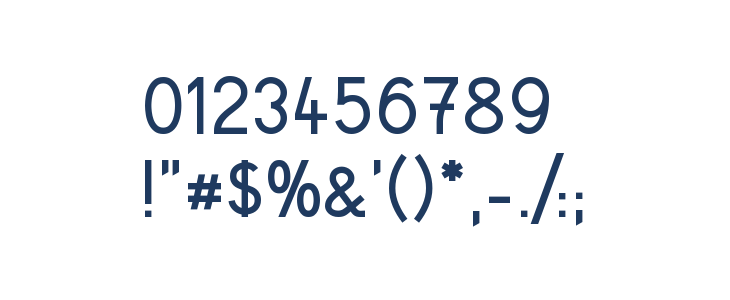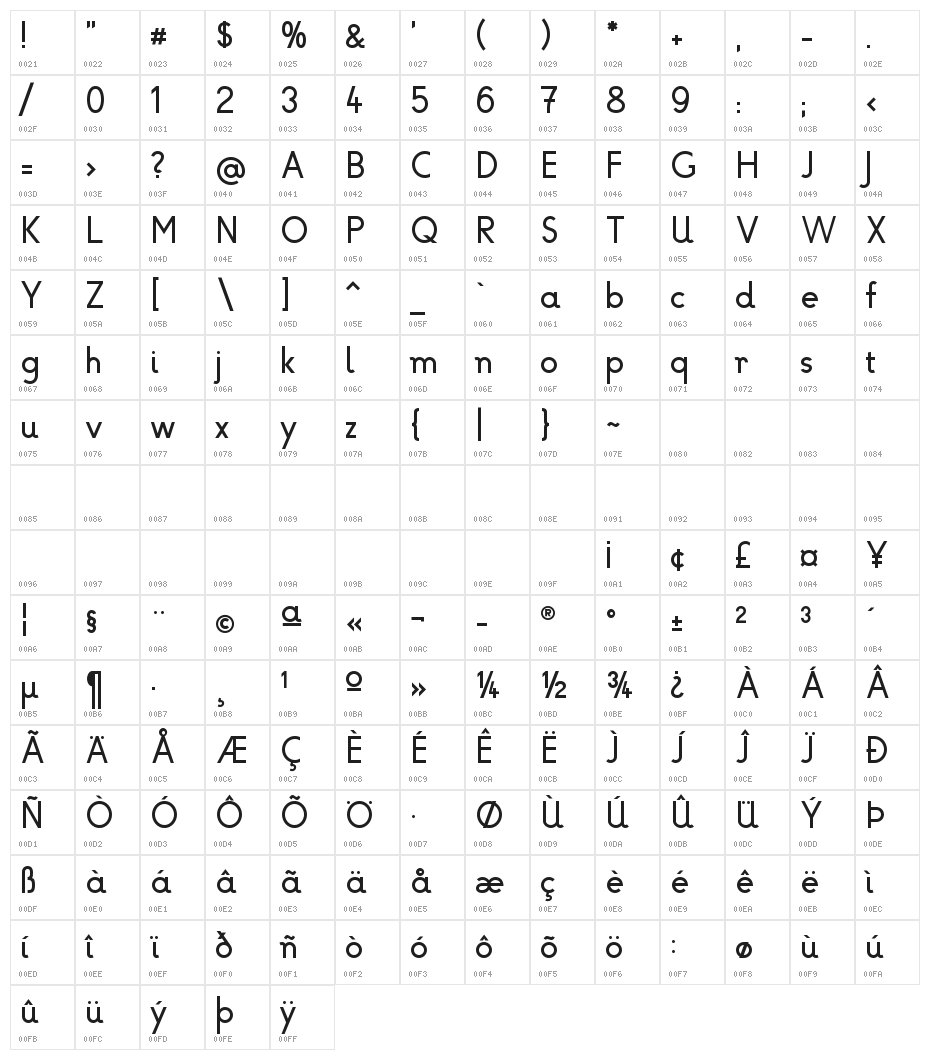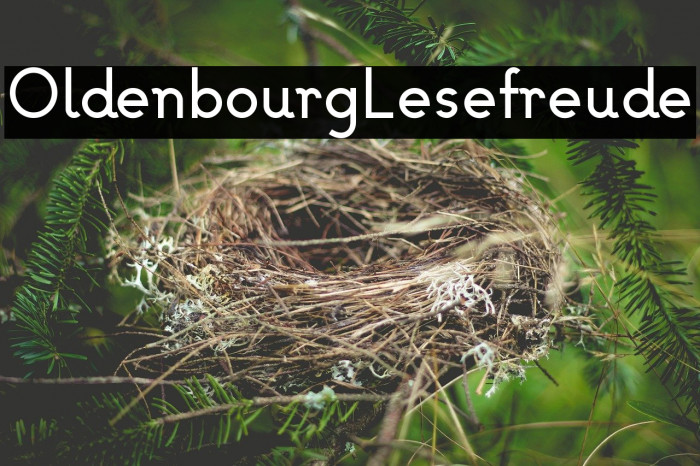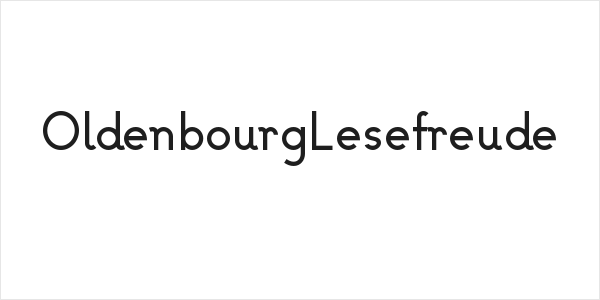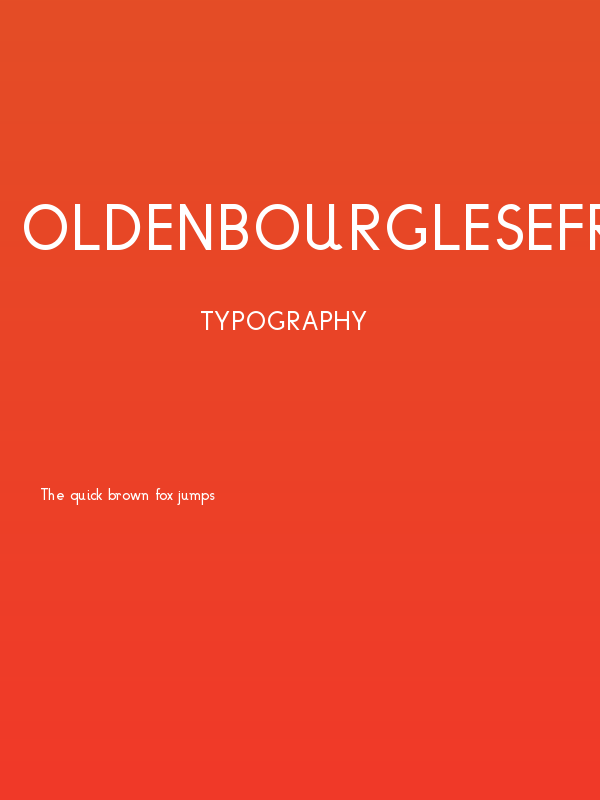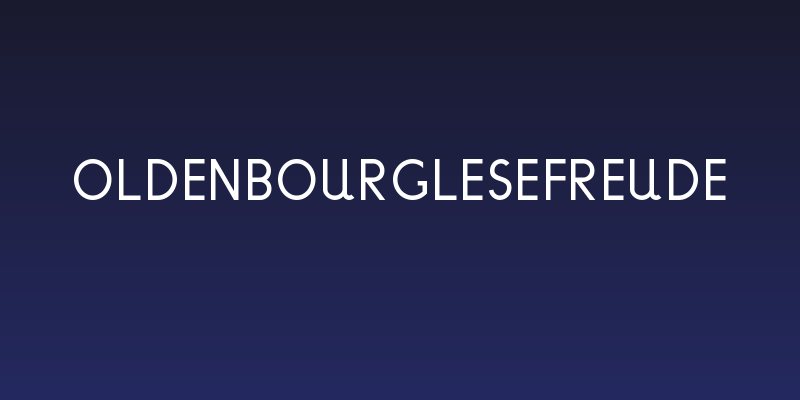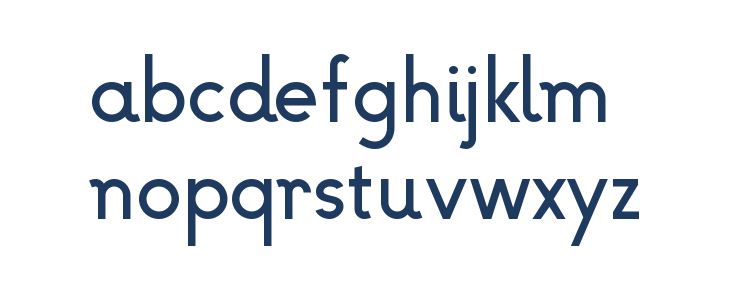
OldenbourgLesefreude Font
OldenbourgLesefreude Description
This font features clean, geometric lines with a modern and minimalist aesthetic. The uppercase letters are bold and well-defined, while the lowercase letters maintain a consistent roundness and simplicity. The numerals are clear and easy to read, making them suitable for various applications. Special characters are designed with the same attention to detail, ensuring uniformity across the entire character set. The overall appearance is sleek and professional, making it versatile for both digital and print media.